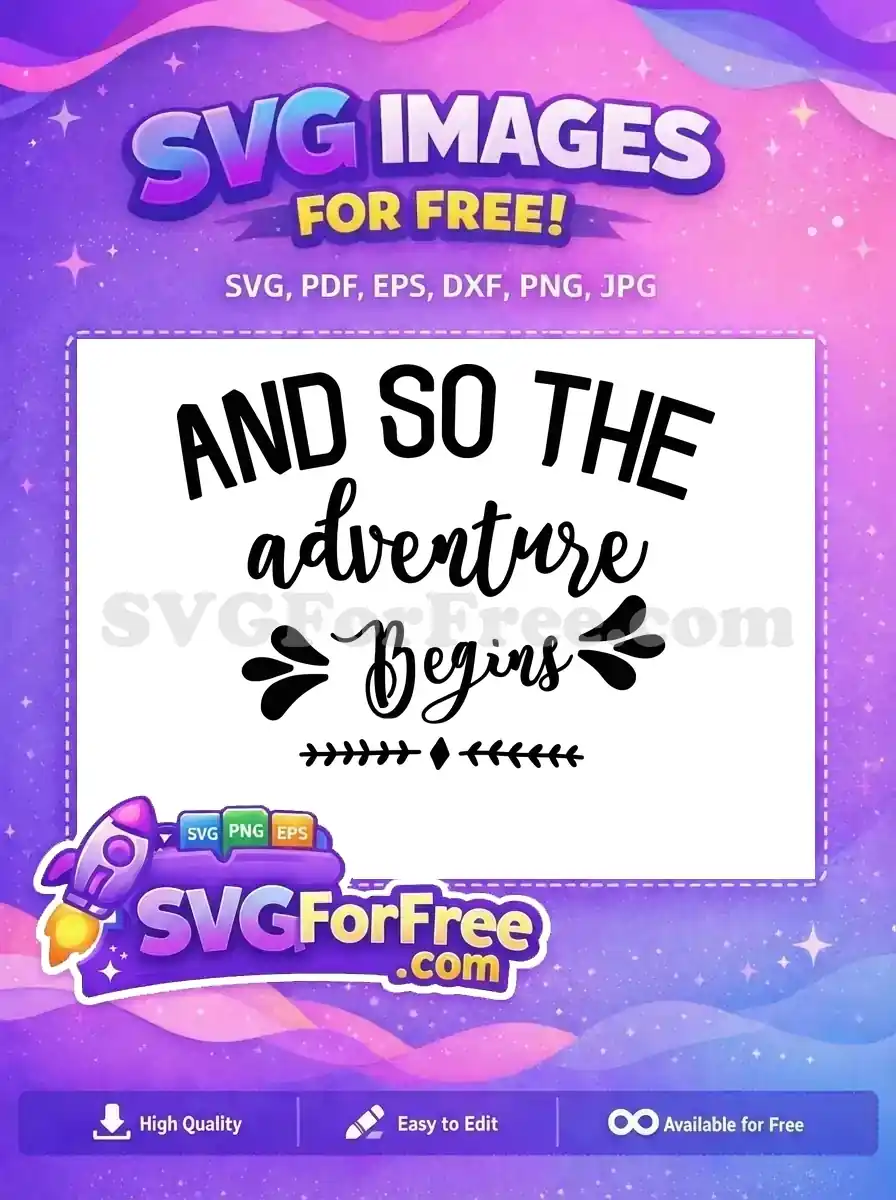
A free, whimsical design of ‘And so the adventure Begins’ with a decorative arrow pointing to the right.
Free Wedding Font Free Calligraphy And So The Adventure Free SVG